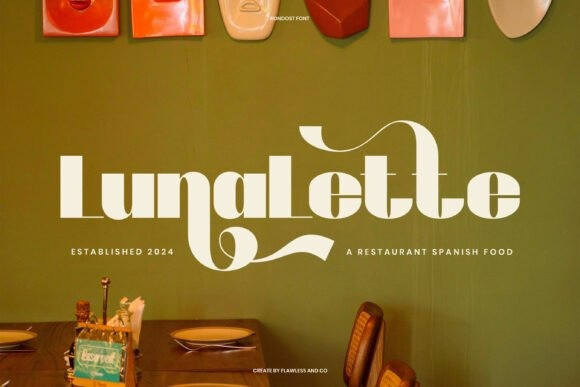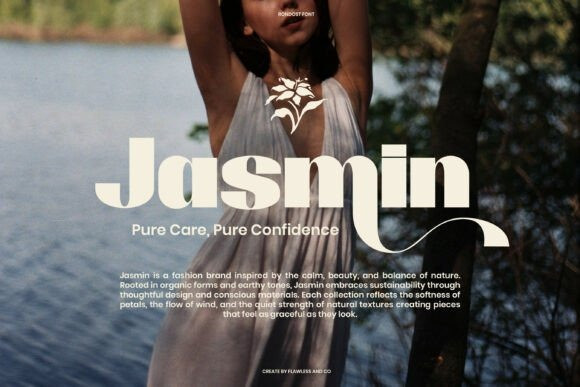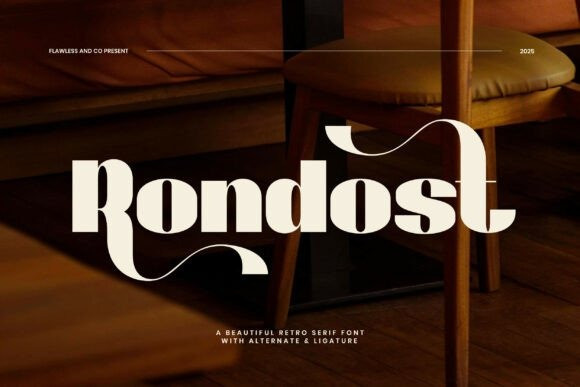
Rondost Font
Rondost Font is a stylish retro serif font that brings bold charm and playful sophistication to your designs. With a high-contrast shape, smooth curves, and dramatic alternates, Rondost captures the essence of vintage elegance while staying modern and distinctive. Whether you’re designing for lifestyle branding, packaging, or editorial layouts, this font delivers unforgettable character with a strong visual punch.